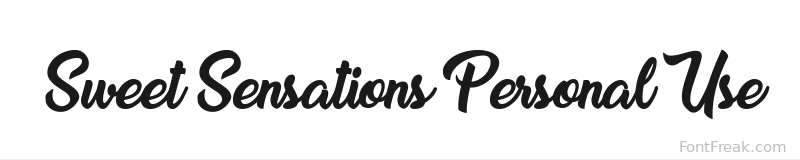
Sweet Sensations Personal Use
About Sweet Sensations Personal Use
The Sweet Sensations Personal Use font, designed by Billy Argel Fonts, is a delightful script typeface that exudes charm and elegance. With its fluid, handwritten characteristics, this font brings a warm and inviting feel to any project. The strokes are moderate in weight, creating a balanced contrast that enhances its legibility while maintaining a playful aesthetic. The decorative elements, such as the whimsical swirls and loops, add a unique flair, making it an ideal choice for projects that require a personal touch.
This font is particularly well-suited for a variety of creative applications. Wedding invitations can benefit from its romantic style, making them feel intimate and special. Additionally, restaurant menus can showcase a cozy atmosphere, enticing diners with a handwritten allure. It’s also an excellent choice for greeting cards, enhancing the sentiments expressed within, and for personal blogs or social media graphics where a friendly tone is desired. Graphic designers, small business owners, and content creators will find this font to be a versatile asset in their typography toolkit.
What sets the Sweet Sensations Personal Use font apart is its ability to evoke emotion and connection. It stands out not just for its aesthetic appeal, but also for the warmth it brings to any text. Whether you're looking to add a touch of elegance to your designs or create a more personable brand identity, this font offers the perfect balance between style and functionality. For those interested in incorporating this charming typeface into their projects, the Sweet Sensations Personal Use font free download is a fantastic opportunity to explore its creative potential.